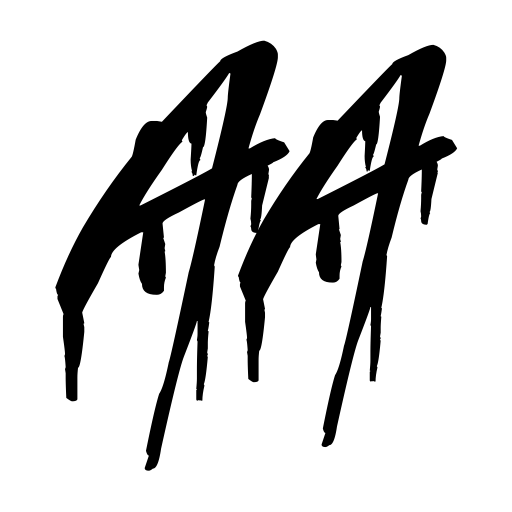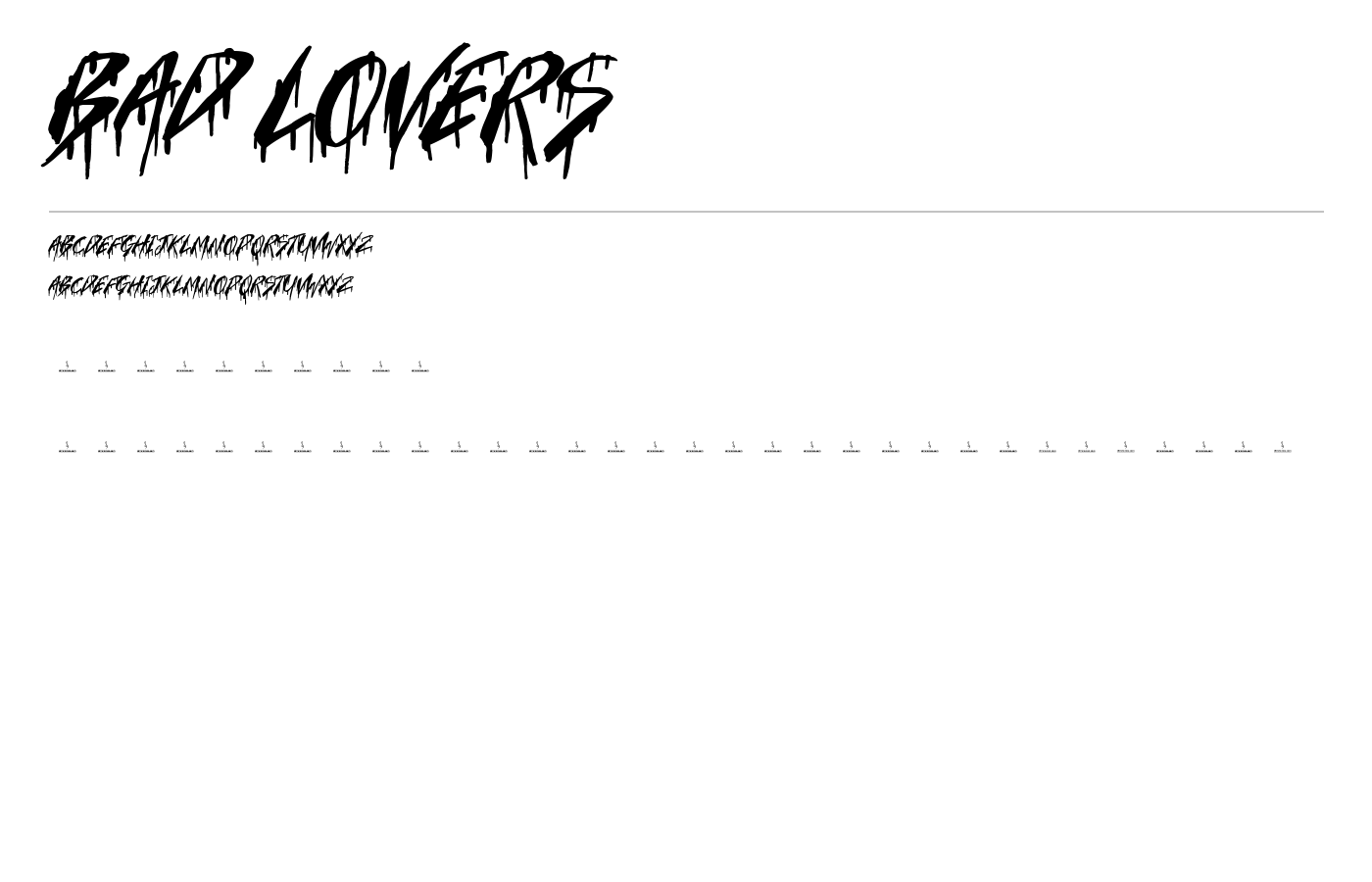
Bad Lovers is a bold, condensed script font with an edgy, rough graffiti style that features sharp, spiky strokes and dripping effects reminiscent of street art. Its energetic and rebellious character makes it perfect for urban branding, music posters, or any project seeking a raw, youthful vibe that demands attention. This font works best in headlines or display uses where its dynamic, hand-crafted feel can shine.
Bad Lovers Font
About Bad Lovers Font